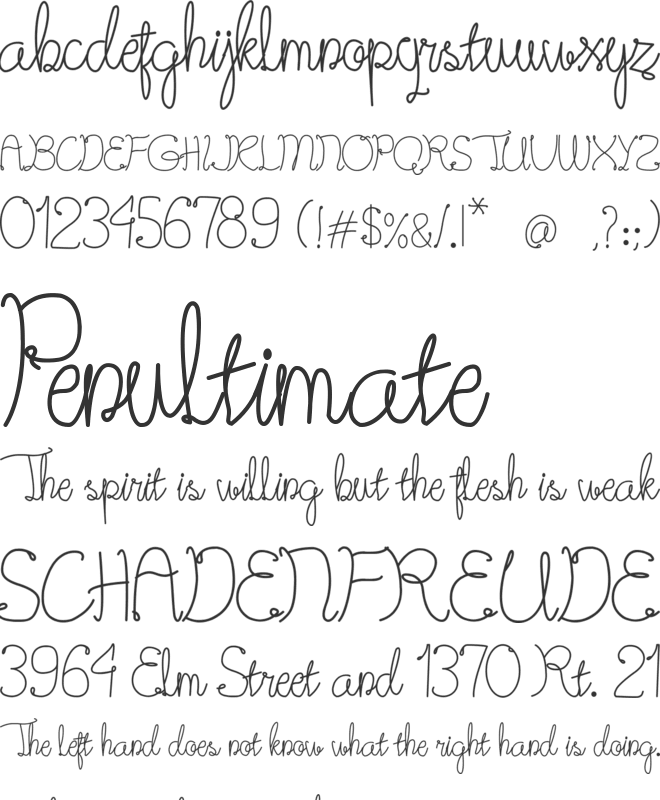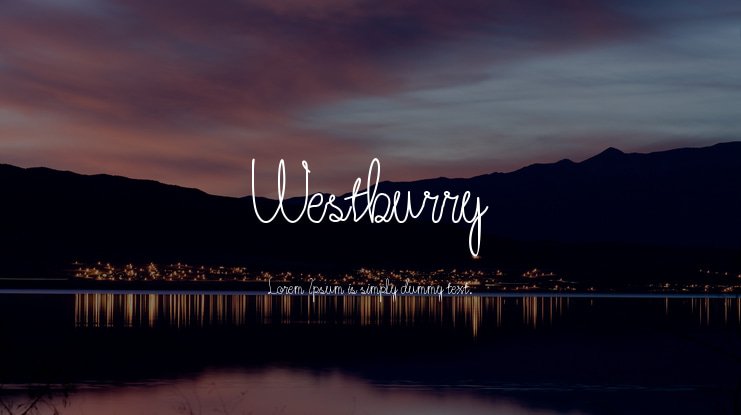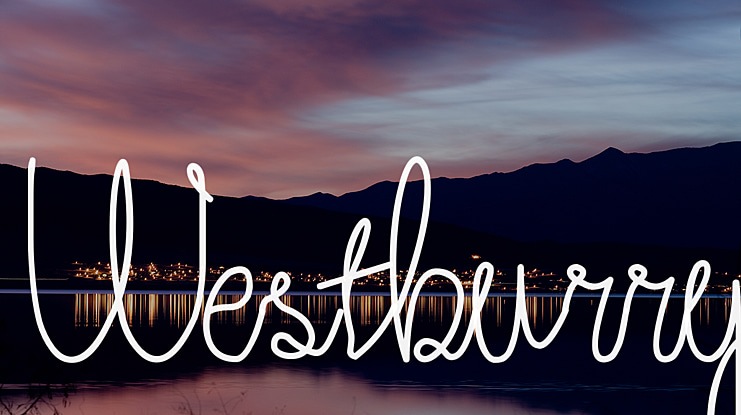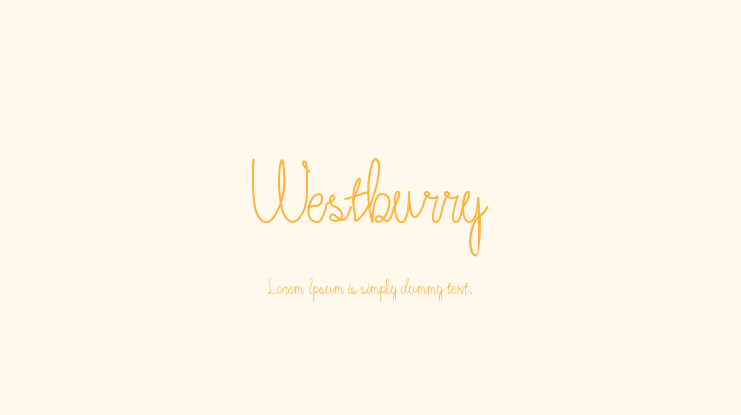
Westburry Font
Muhammad Wahyudin
Westburry Font is modern handwritten, with sweet touches and beautiful curves on each letter.
Westburry Font is perfect for fashion magazines, product watermarks, branding projects, logo, wedding designs, social media posts, advertisements, product packaging, product designs, label, photography, watermark, invitation, stationery and any projects that need handwriting taste.